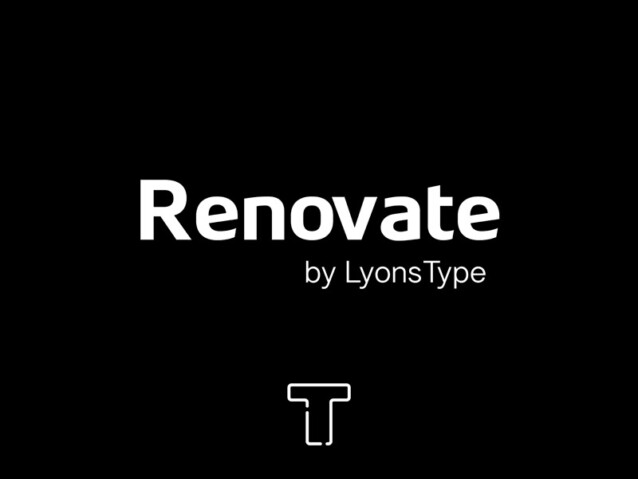
LT Renovate Font Family
LT Renovate Font Family is a free geometric sans serif font family with unique characters for a touch of distinction. Simple yet sophisticated, this typeface design gives a clean and modern appearance while carrying some almost retro tones.
Look into the future with LT Renovate. It’s got modern and sleek proportions.